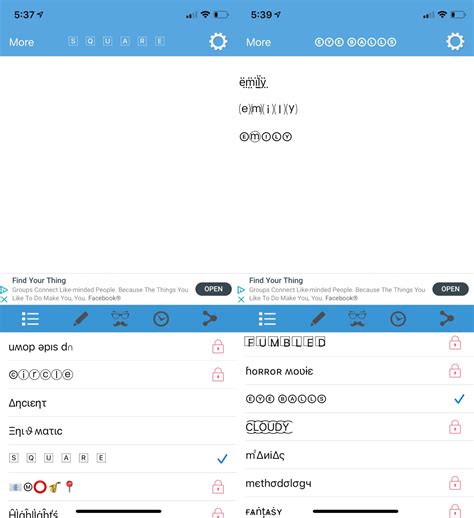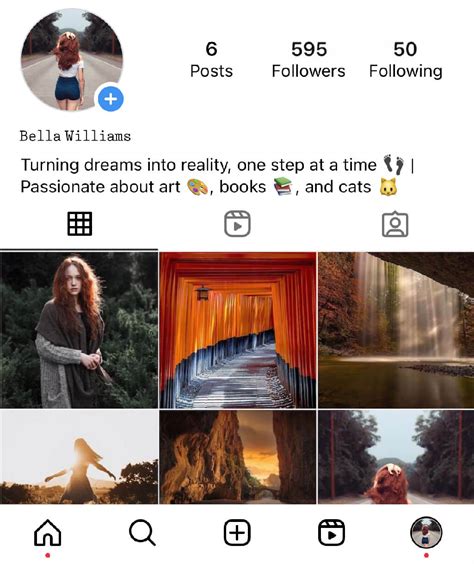
In the fast-paced creation of societal media, standing out take more than just high-quality photography; it need a unique visual identity that captures attending within moment. One of the most effectual way to upgrade your brand front is by using creative Fount For Instagram. While the program offers a limited choice of native typography, clever user have discovered that integrating custom, stylized textbook can transform a standard caption or bio into a compelling call to action. By understanding how to leverage external fiber sets, you can ensure your content remains memorable, professional, and entirely consistent with your personal make aesthetic across every interaction.
Why Typography Matters for Social Media Branding
The ocular landscape of social media is incredibly saturate. Users scroll rapidly, and the divergence between a stop-and-read moment and a lost opportunity oftentimes comes down to visual hierarchy. Composition play a all-important role in how your audience perceives your content. When you choose specific Fonts For Instagram, you are doing more than just prefer a mode; you are establishing a vox.
The Psychology of Style
Different typefaces carry different emotional weights. A bold, sans-serif font often advise modernism, confidence, and authority, while a delicate, cursive book implies elegance, creativity, or personal trace. By strategically use these variations in your bio, legend, or Stories, you direct your audience's emotional answer before they even cease read your content.
Improving Readability and Engagement
Strategic use of schoolbook format also better the approachability and scanability of your posts. Using whitespace and distinct font fluctuation can facilitate break up long-form captions, making them feel less dash to readers. When your text is visually piquant, followers are more likely to linger on your position, increasing dwell clip and improving your overall reach.
How Custom Text Works on Instagram
notably that Instagram does not natively support custom baptistery in the traditional sentiency. Rather, program that generate these styles use Unicode characters. These are not technically "fonts" but rather specialized symbol that look like different alphabet styles. Because they are constituent of the Unicode measure, they seem correctly on most devices and browsers, allowing you to imitate and paste them forthwith into your Instagram profile fields.
Recommended Usage Across Instagram Features
| Feature | Better Font Style | Aim |
| Bio | Light Sans-Serif | Professionalism and Clarity |
| Caption | Minimalist Monospaced | Yell to Action Highlights |
| Narrative | Cosmetic Script | Vehemence and Personality |
π‘ Tone: Always prioritize discernability over manner. If a font is too complex to say, your hearing will simply scroll past instead than pursue with your message.
Best Practices for Implementing Text Styles
While it is tempting to use an raiment of different style, eubstance is the key to a professional grid. Here are a few slipway to keep your aesthetic balanced:
- Maintain it simple: Stick to one or two accent case uttermost. Too many styles make visual clutter.
- Highlight keywords: Use custom text specifically to describe attention to crucial phrase, such as "Link in Bio" or specific promotional crack.
- Maintain accessibility: Insure your chosen fiber are clear for exploiter who trust on screen reader.
- Avoid overuse emojis: If your text is already heavily stylized, bestow too many emojis can do your legend look spammy rather than knowing.
Mastering the use of diverse ocular ingredient is indispensable for those looking to build a cohesive and professional societal medium presence. By thoughtfully selecting specific mode that array with your brand identity, you can importantly enhance the way your hearing interacts with your message. Whether you are purpose for a minimalist look or a more expressive aesthetic vibration, the correct alternative of composition acts as a silent ambassador for your substance. Always recall that the finish is to improve the exploiter experience rather than overwhelm it, keep your core message front and heart. When utilised effectively, these little modifications turn average profile into standout hubs of digital engagement, facilitate you leave a lasting impression in the ever-evolving world of ocular storytelling.